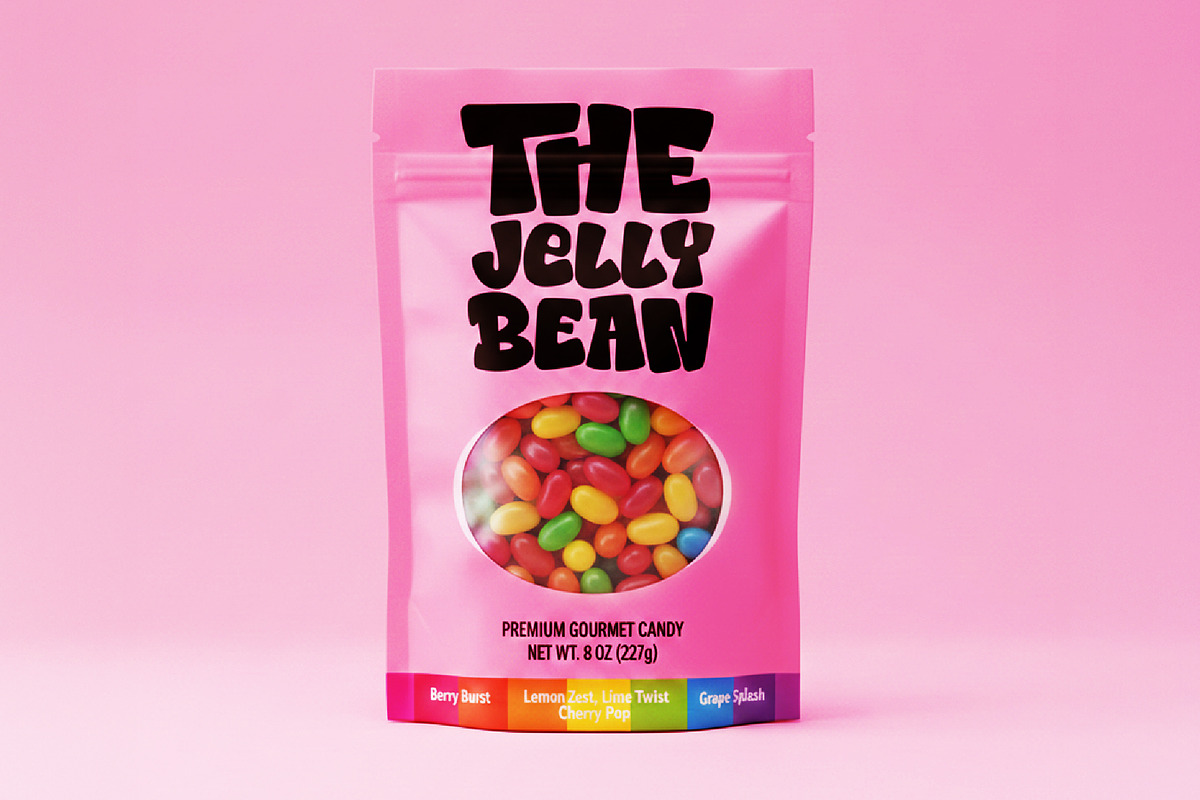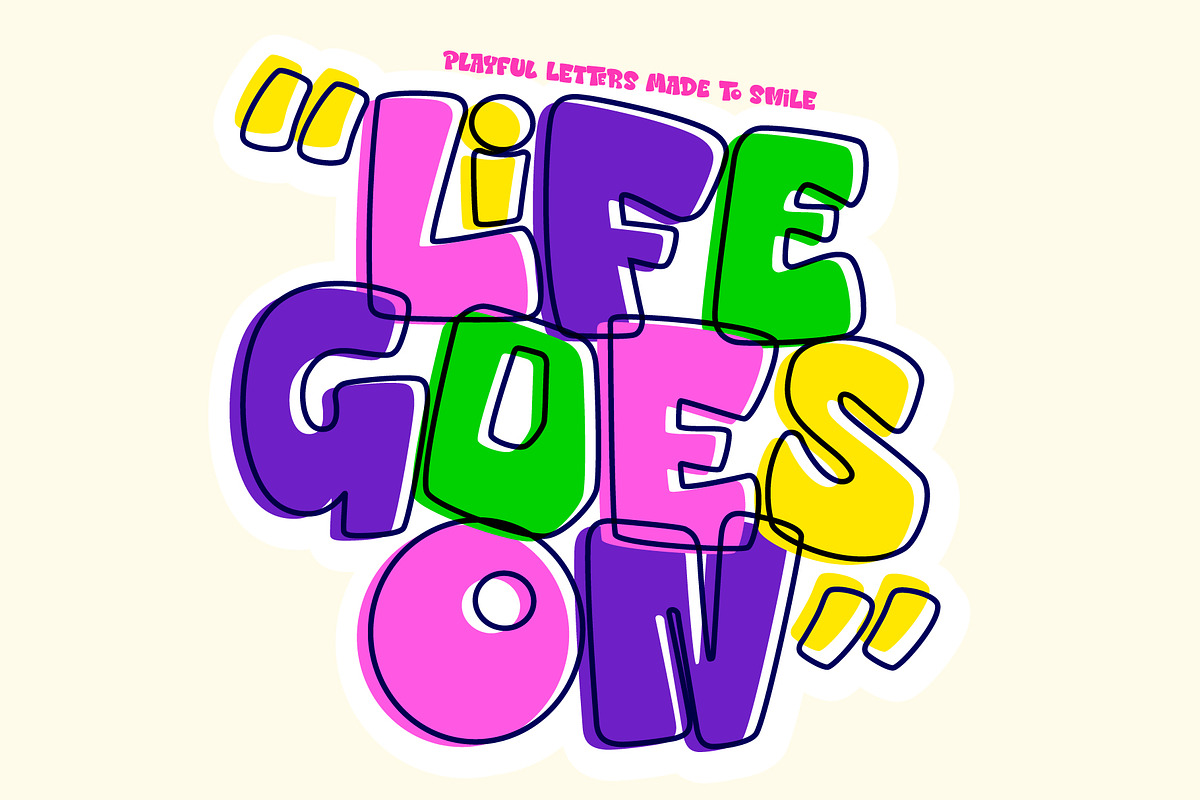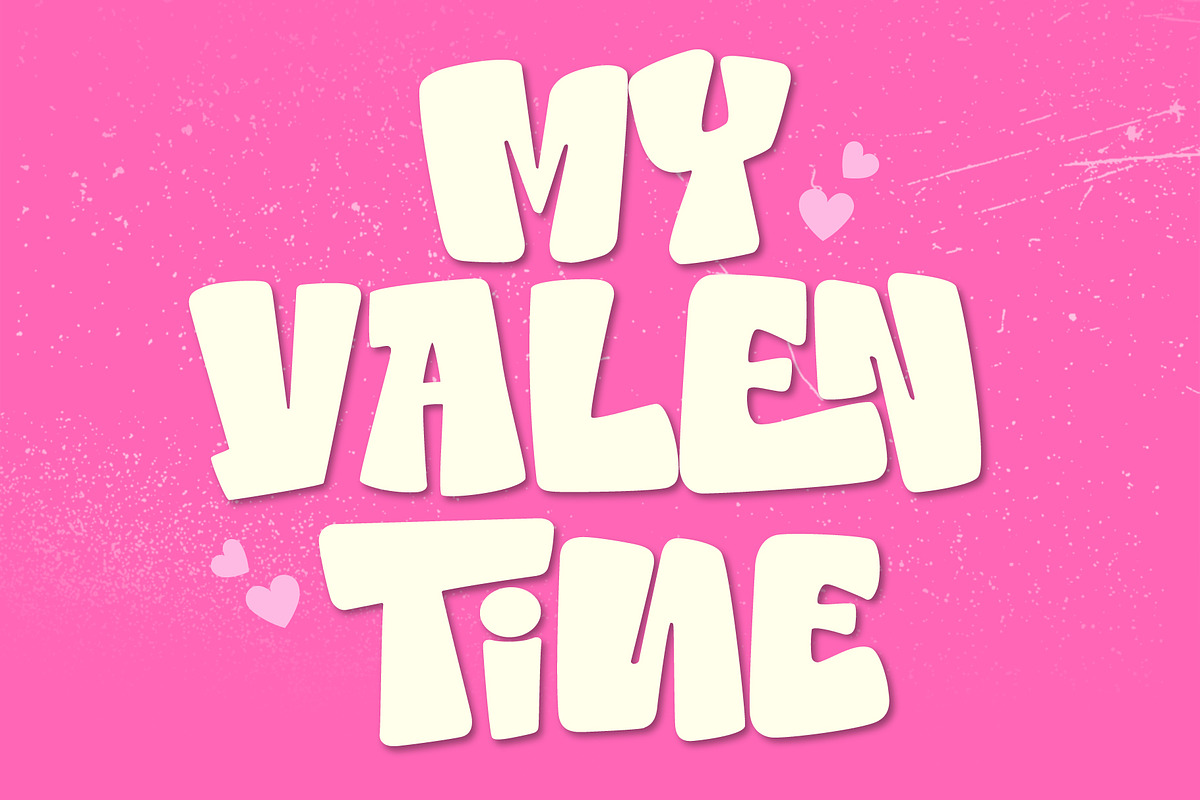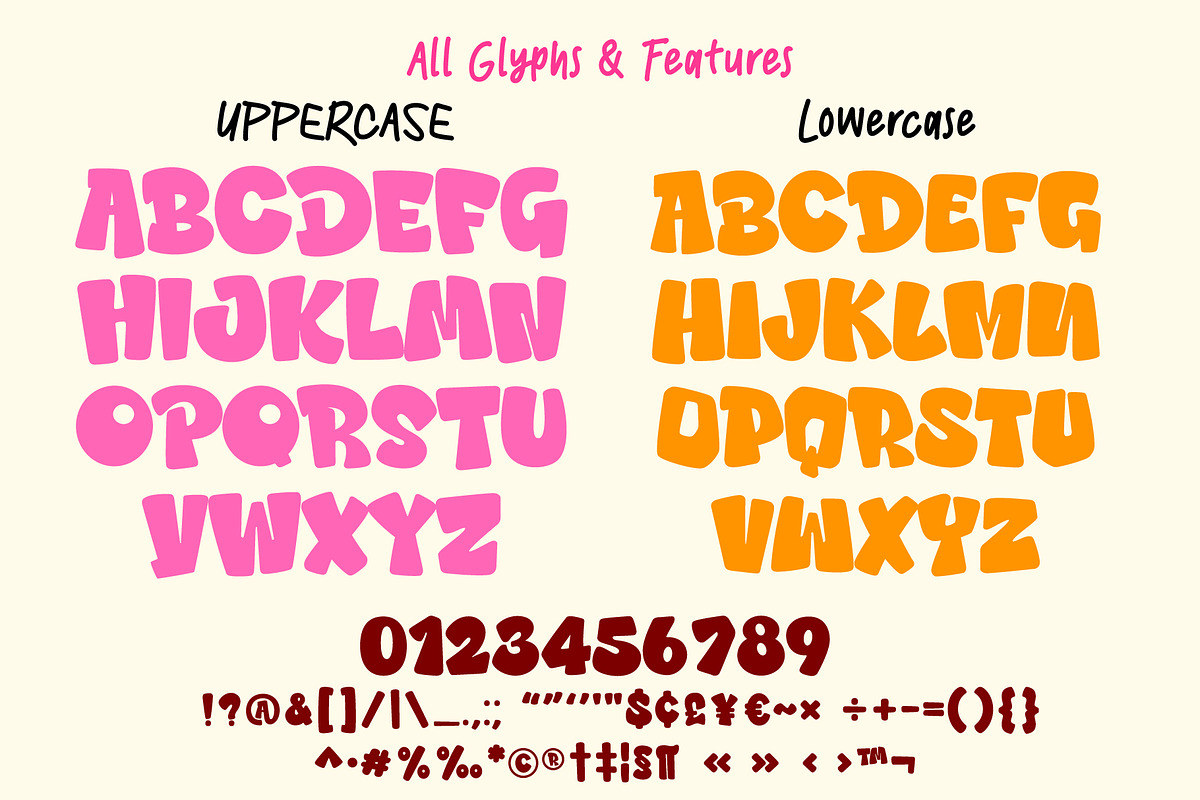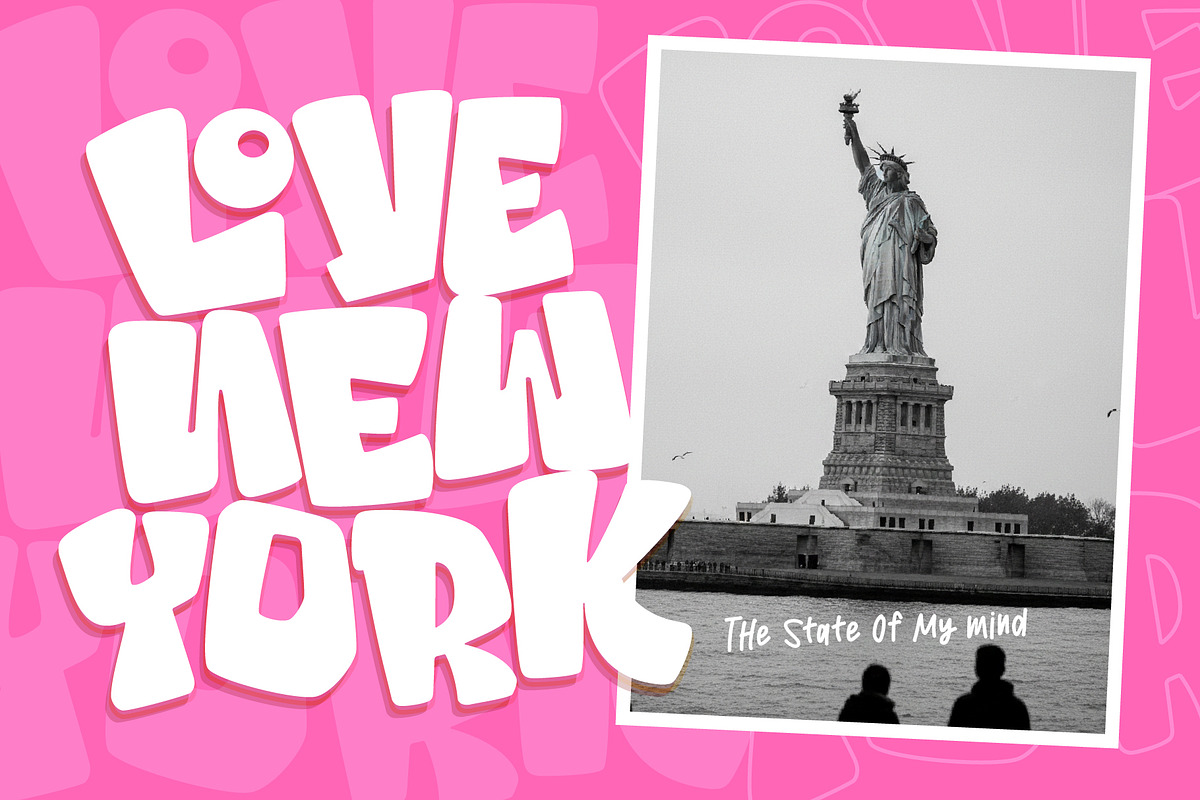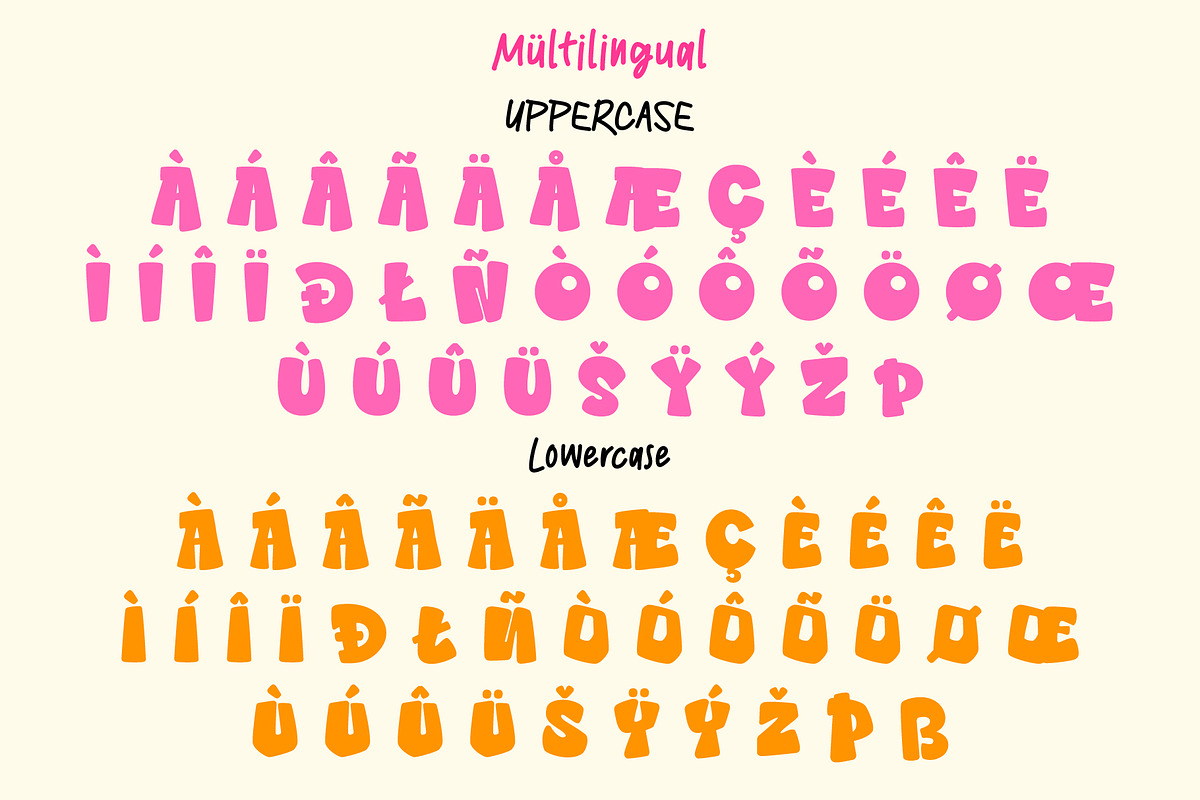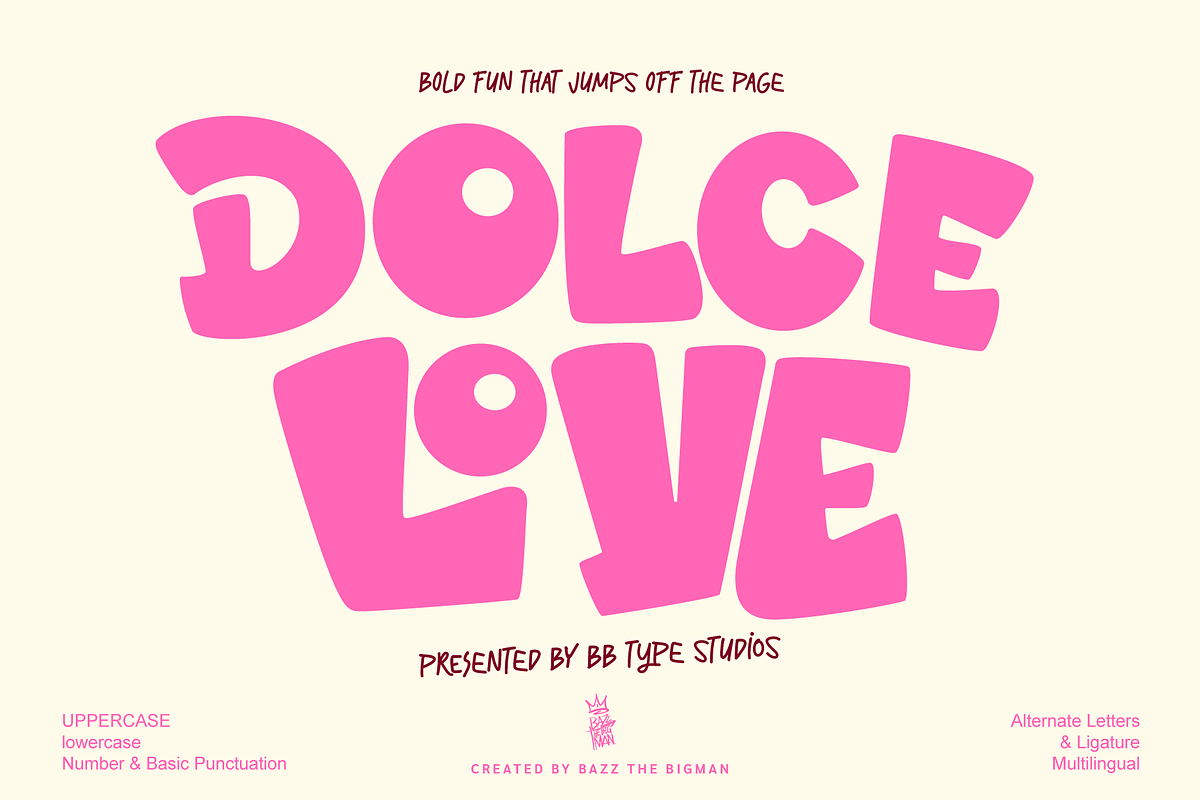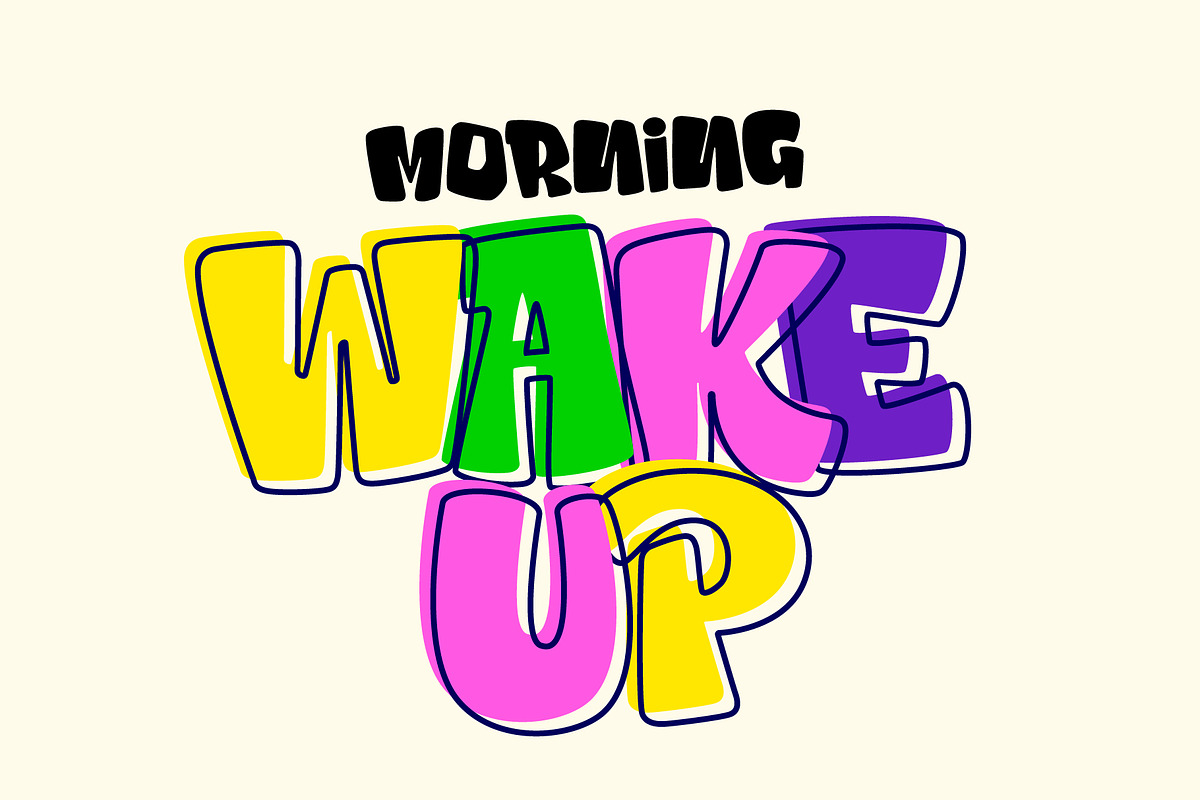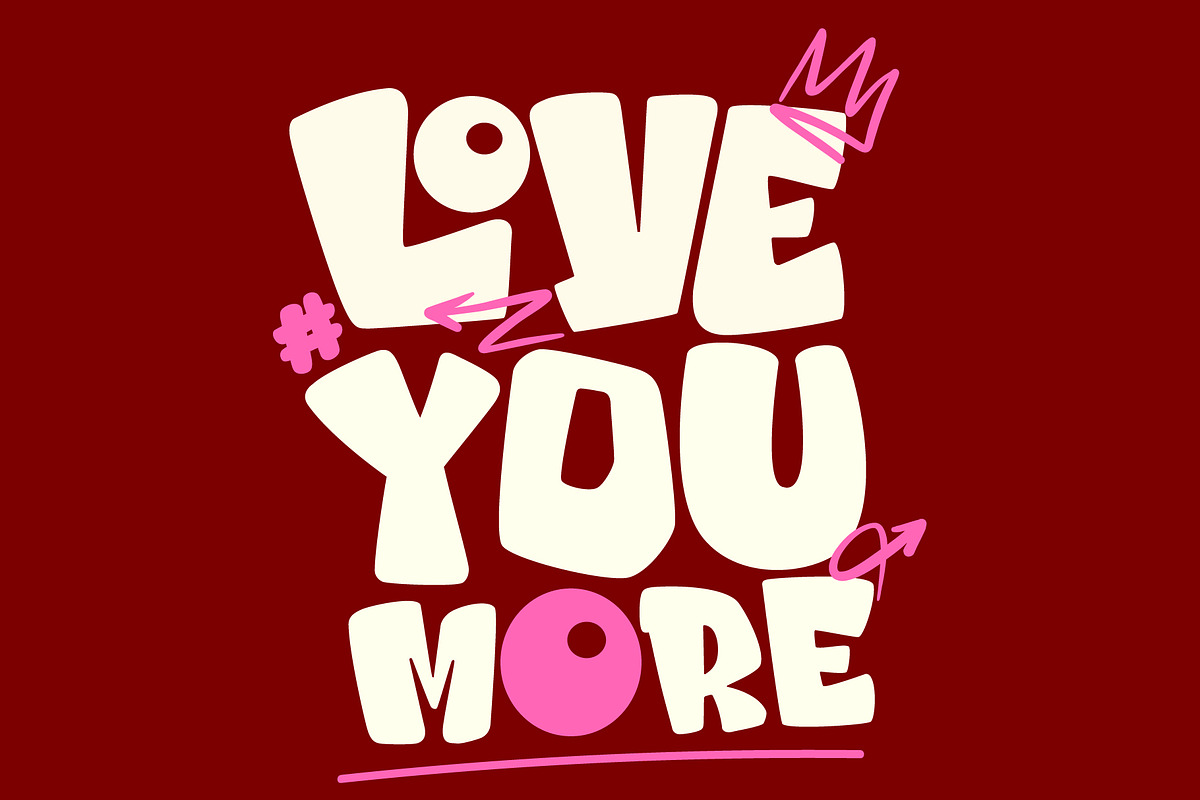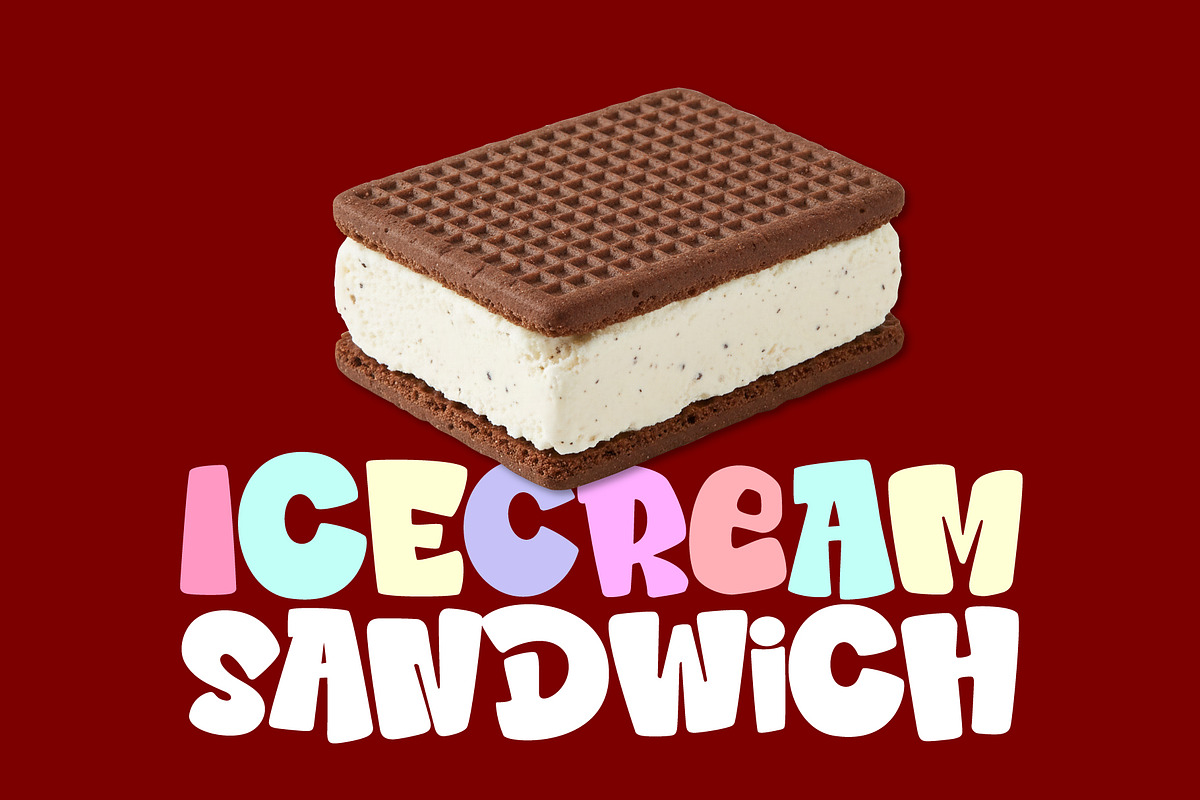
Dolce Love
Immerse yourself in the enchanting charisma of Dolce Love, an audaciously playful display font designed with the sole intent of sprinkling joy, uniqueness, and a dash of sweetness to your designs. Characterized by its hefty figures, rounded bends, and attractive intricacies, Dolce Love masterfully crafts eye-popping headlines and compelling visual expressions. It seamlessly complements kids’ projects, Valentine’s day crafts, sweet treat wrappings, stickers, posters, brand imaging, social media posts, and any invention that requires a dash of daring cuteness. Dolce Love, your go-to if you desire a daring, delightful, and audacious font that practically leaps off your canvas.